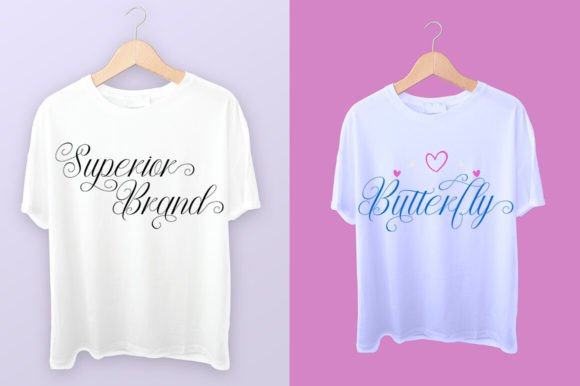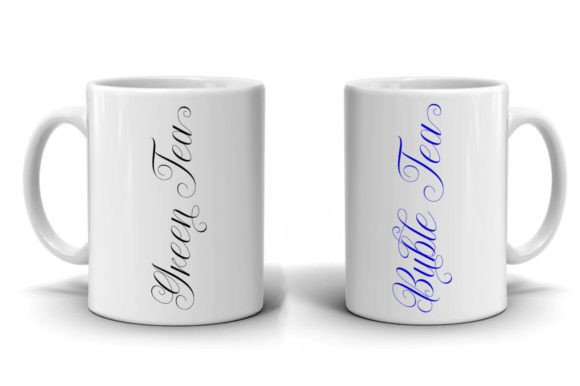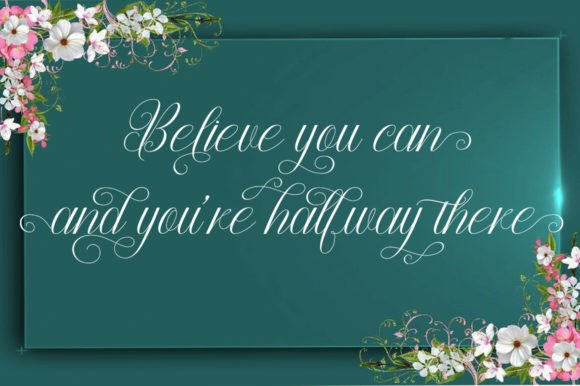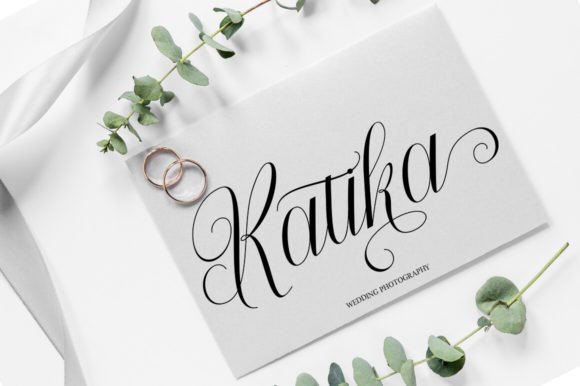
The Quest for the Perfect Script Font: Discovering Briliantina Script
I still remember the countless hours I spent searching for the ideal script font for a wedding invitation project. My client wanted something trendy, feminine, and elegant, but I was coming up blank. That was until I stumbled upon Briliantina Script – a modern script font that has since become a staple in my design toolkit.
Briliantina Script boasts an irregular baseline, giving it a unique, hand-crafted feel that’s perfect for a variety of creative projects. In this article, I’ll share my experience with this beautiful font, its features, and how to make the most of it in your designs.
An Honest Review of Briliantina Script
- ✨ Trendy and feminine style that’s perfect for wedding invitations, thank you cards, and greeting cards
- ✅ Irregular baseline adds a touch of elegance and sophistication
- 💕 Lovely when used with ink or watercolor effects
- 📚 Extensive OpenType features, including glyphs and stylistic alternates
While Briliantina Script is an excellent font, there are a few things to keep in mind:
- ⚠️ Some letters may appear a bit inconsistent due to the irregular baseline, which can be a minor challenge when pairing with other fonts
- 🤔 Limited use of all-caps, as it may not be as visually appealing
- Kaitlynn Script: A beautiful, elegant script font with a similar feel to Briliantina Script. Use it for formal events, wedding invitations, or luxury branding.
- Alex Brush: A whimsical script font with a more relaxed, handwritten feel. Perfect for creative projects, quotes, or social media graphics.
- Lobster: A classic script font with a sophisticated, yet approachable feel. Suitable for restaurant branding, invitations, or formal events.
- Great Vibes: A modern script font with a bouncy, energetic feel. Use it for creative projects, posters, or social media graphics.
The Story Behind Briliantina Script
Briliantina Script was designed with the intention of creating a modern, feminine script font that captures the essence of handwriting. The designer aimed to create a font that would be perfect for creative projects, wedding invitations, and other applications where a touch of elegance is desired.
Q: What type of projects is Briliantina Script best suited for?
A: Briliantina Script is perfect for wedding invitations, thank you cards, quotes, greeting cards, logos, business cards, and more.
Q: Does Briliantina Script support OpenType features?
A: Yes, Briliantina Script has extensive OpenType features, including glyphs and stylistic alternates, which can be accessed in compatible design software.
Q: Can I use Briliantina Script for digital projects, such as social media graphics or website headers?
A: Absolutely! Briliantina Script can be used for both print and digital projects. Its versatility makes it an excellent choice for a wide range of applications.